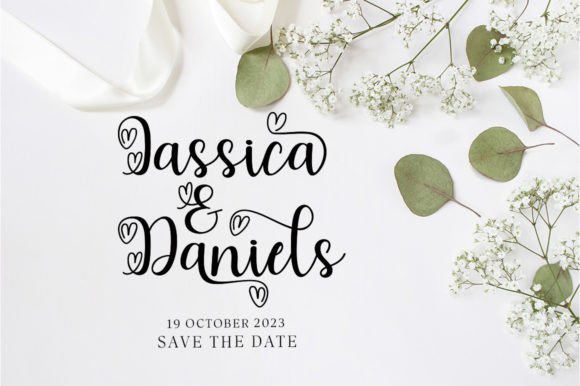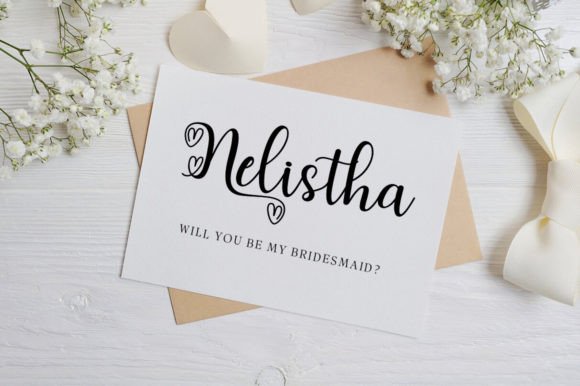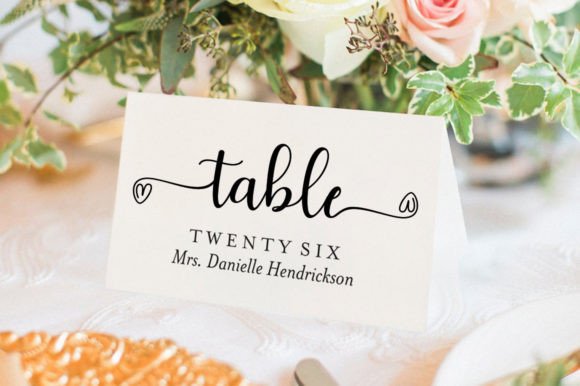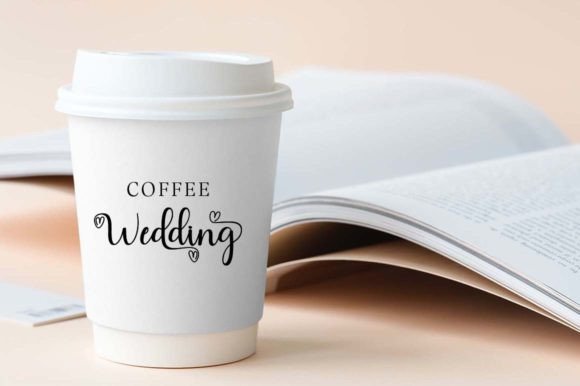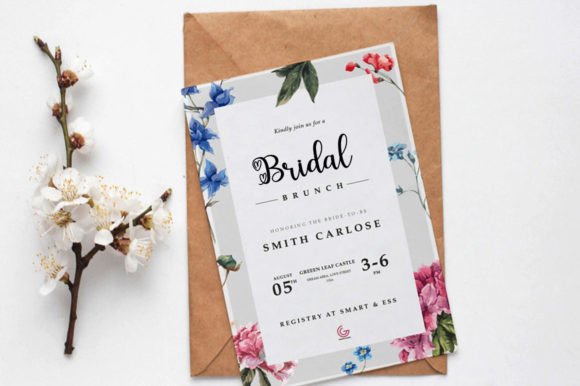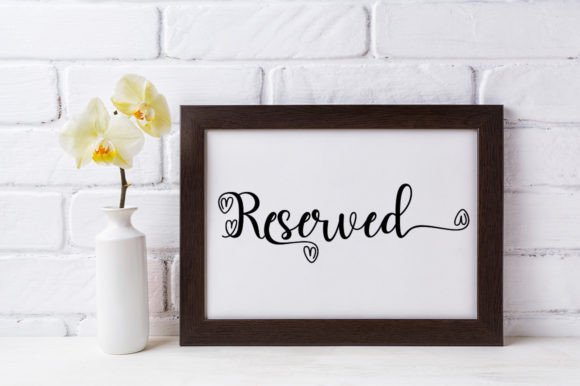
Introduction to Metalina Font
Imagine you’re brainstorming ideas for a new creative project, and you stumble upon the perfect combination of elegance and sophistication. For many designers, this moment is a game-changer – it’s the spark that ignites the entire design process. One such spark is the beautiful Metalina Font, a stunning handwritten font that adds a touch of luxury to any design project.
Whether you’re working on a high-end branding campaign or a simple blog post, Metalina Font is a valuable resource that can elevate your design to new heights. Its unique feel and stunning impact make it a go-to choice for designers seeking a high-quality, premium look. With its transparent background and versatile style, Metalina Font is the perfect addition to any creative project.
Key Features of Metalina Font
- High-quality design resource for creative projects
- Unique, modern design with a transparent background for versatility
- Perfect for graphic designers, digital artists, and anyone seeking a modern, high-quality font
Honest Review: Metalina Font
As a designer, I’m always on the lookout for high-quality design resources to elevate my creative projects. The Metalina Font caught my attention, and I decided to give it a try.
- ✨ Unique and modern design that stands out from the crowd
- ✨ Clear and readable even at smaller font sizes
- ✨ Transparent background, allowing for easy customization
- ⚠️ Limited font weights, which might not be suitable for all design projects
- ⚠️ Not as extensive character set as I would have liked, which might cause issues with certain languages
Overall, I was impressed with the Metalina Font’s design and ease of use. While it may not be the most comprehensive font option, it’s a great choice for designers looking for a unique and modern feel. With a little creativity, I was able to work around its limitations and achieve the desired look for my project.
Tips for Getting the Most Out of Metalina Font
To get the most out of the Metalina Font, use it in combination with other design elements, such as images and graphics, to create a visually appealing design. You can also experiment with different font sizes, colors, and alignments to create a unique look.
The Metalina Font is commonly used in creative projects, such as logos, business cards, and brochures. It is also used in digital designs, such as social media graphics and website headers.